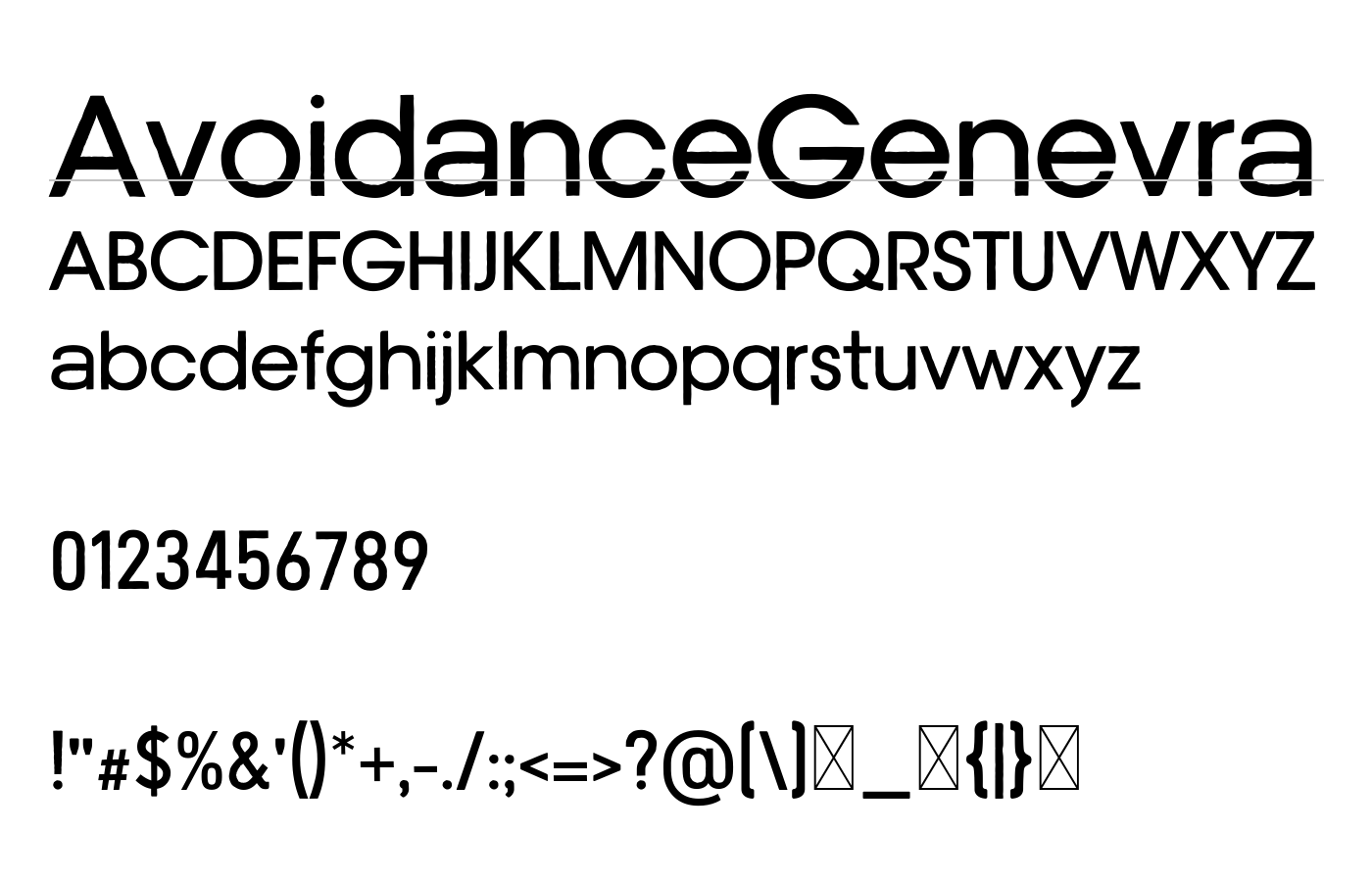
AvoidanceGenevra is a clean and modern sans serif font with a slightly condensed width and uniform stroke weight, giving it a sleek and minimalist appearance. Its simple geometric shapes and high x-height make it highly legible, while the rounded terminals add a touch of friendliness, making it well-suited for contemporary branding, editorial headlines, and digital interfaces that require clarity with subtle personality. This font works best where clear communication and a modern, approachable tone are essential.
AvoidanceGenevra Font